So long, Calibri: Microsoft has settled on a new font for its Office apps
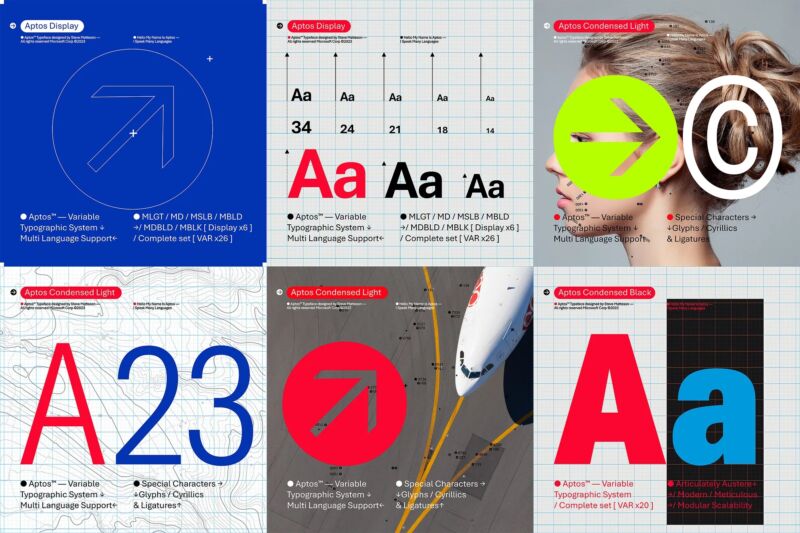
Two years ago, Microsoft announced its plans to move away from using Calibri as the default typeface for Word, Excel, Powerpoint, Outlook, and the other apps in the suite formerly known as Microsoft Office. The company introduced five candidates for replacement fonts, and a winner has emerged: a font family called Aptos, formerly known as Bierstadt.
Microsoft has never laid out in so many words why it feels it needs to move away from Calibri, though today’s announcement implies that Aptos was made with high-resolution, high-density displays in mind. Calibri replaced Times New Roman as the suite’s default font in Office 2007, at a time before “Retina” displays and when 1024×768 and 1280×800 screens were still the norm—a ClearType font, Calibri itself was a response to the shift from CRT to LCD screens.
Aptos was created by Steve Matteson, who is also responsible for Windows 3.1’s original TrueType fonts (including Times New Roman, Arial, and Courier New) as well as Segoe, which has been Windows’ default system font since Vista and is also used for Microsoft’s current logo. Given Matteson’s history with Microsoft, choosing Aptos over the others feels like the safest possible choice.
The main flavor of Aptos is a sans-serif font—described by Matteson as “Helvetica” but with “a bit of a human touch” that makes it “more approachable and less institutional.” But like Apple’s San Fransisco typeface, Aptos comes in many different styles, including condensed, monospaced, and serifed versions.
The post about Aptos’ ascension, like the original post about the five typeface candidates, is full of the highfalutin language you sometimes get when you ask design people to talk about design things. From the piece (the quote is Matteson’s):
He designed the font with a slight humanist touch. He wanted Aptos to have the universal appeal of the late NPR newscaster Carl Kasell and the astute tone of The Late Show host Stephen Colbert. “There’s always that little voice inside of me saying, ‘You know, you gotta try to sneak in a little bit of humanity. You can’t just use rulers and straight edges and French curves (a template used to help draw uniformed curves) to make all these shapes mechanical.’ I did that by adding a little swing to the R and the double stacked g,” he said. Steve wanted the font to be more universal and less mechanical or institutional. Aptos had to induce trust and be engaging to read.
Aptos is described as a font with “warmth” that is “professional and yet relatable.” Relative to Arial, it is also “more mechanical and rationalized” with “a lack of somewhat fussy curves.” Matteson says he drew the initial shapes by hand on paper rather than on a computer so that they wouldn’t become too “ephemeral.” The post also highlights that a lowercase l and an uppercase I are made to look different, something you’ll understand the importance of if you read this sentence again.
As for the options that lost the default typeface contest—Tenorite, Skeena, Seaford, and Grandview—they’ll all continue to be available in Microsoft’s apps as non-default options. Everyone’s a winner.